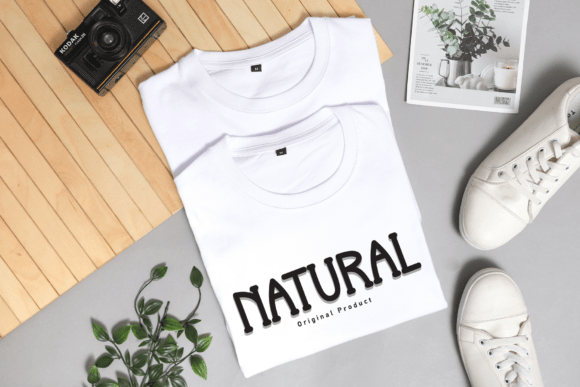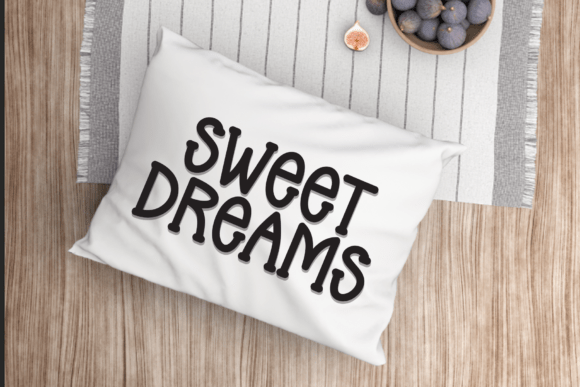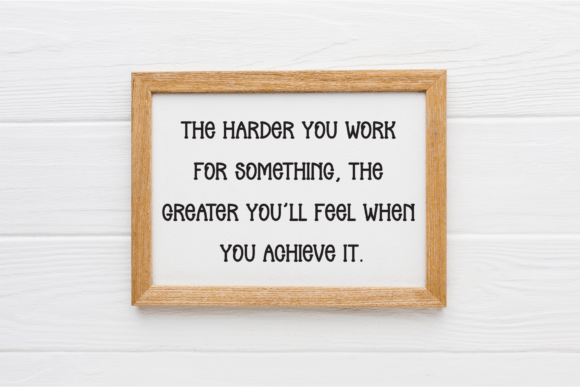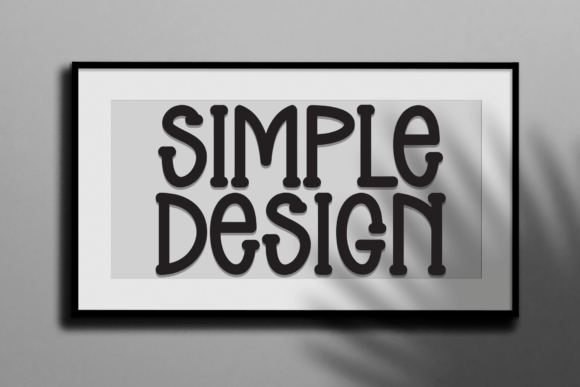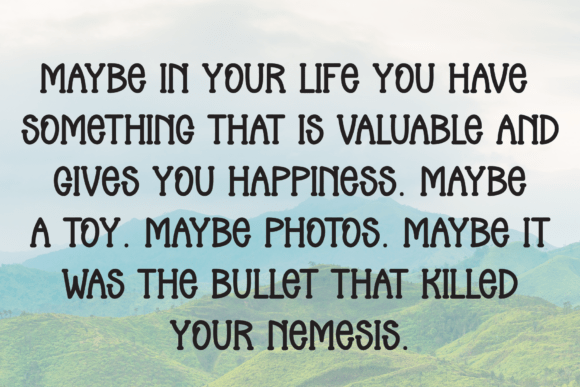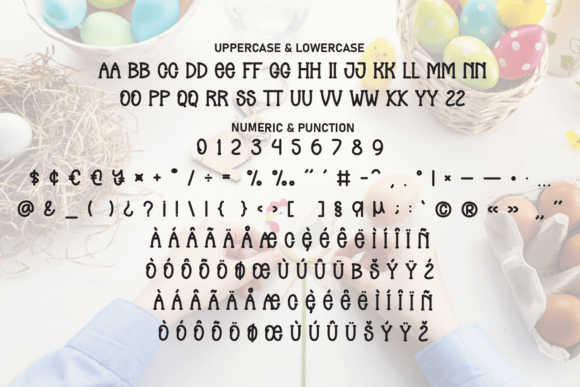
Introducing Easter Valentine Font: The Cheerful Charm Your Designs Need
I’ll never forget the time I was working on a wedding invitation project, and my client asked for a font that was “fun, playful, and romantic.” I scoured the internet, tried countless fonts, but nothing seemed quite right. That was until I stumbled upon a hand-scrawled display font that instantly captured the cheerful charm and friendly flair I was looking for. It was love at first sight! 💕
Fast forward to today, and I’m excited to introduce you to the Easter Valentine Font, a delightful typeface that embodies the same playful spirit I fell in love with. In this article, we’ll dive into the world of Easter Valentine Font, exploring its features, how to use it, and what makes it so special.
A Personal Review: What I Love About Easter Valentine Font
So, what makes Easter Valentine Font so irresistible? Here are a few things that caught my attention:
- ✨ Cheerful charm: This font exudes a friendly, approachable vibe that’s perfect for designs that need a playful twist.
- ✅ Effortless elegance: Despite its playful nature, Easter Valentine Font still manages to convey a sense of sophistication and elegance.
- 💕 Romantic feel: The font’s hand-scrawled style gives it a romantic, whimsical feel that’s ideal for wedding invitations, love letters, and Valentine’s Day designs.
While Easter Valentine Font is an amazing addition to any design project, there are a few things to keep in mind:
- 🤔 Limited use cases: Due to its playful nature, Easter Valentine Font might not be the best fit for formal or corporate designs.
- ⚠️ Glyph limitations: As with any font, there may be limitations to the number of glyphs available, which could impact its use in certain languages or design applications.
Easter Valentine Font was inspired by the joy and playfulness of handwritten letters and love notes. The designer aimed to create a font that captured the essence of friendly, approachable communication, perfect for designs that require a touch of whimsy and romance.
| What is the Easter Valentine Font best suited for? | The Easter Valentine Font is ideal for designs that require a playful, romantic, and whimsical touch, such as wedding invitations, love letters, and Valentine’s Day designs. |